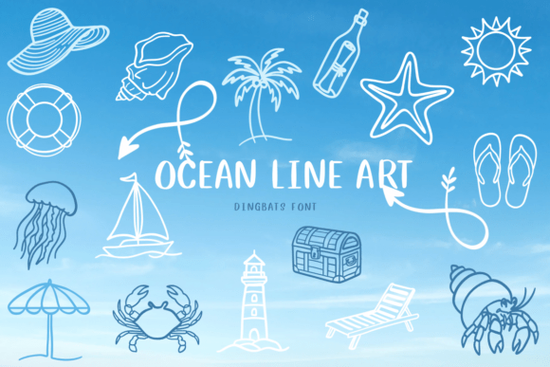
If you're working on a beach-themed invitation, coastal branding, or a summer craft project, the right decorative elements can make all the difference. That’s where Ocean Line Art Font comes in handy. This dingbat font features hand-drawn ocean motifs think seashells, starfish, waves, and sailboats all rendered in a light, sketchy line style that feels both relaxed and intentional.
Unlike standard letter fonts, Ocean Line Art is made entirely of symbols, which means each key on your keyboard gives you a different nautical illustration. It’s perfect for designers who want to add subtle texture or themed accents without relying on clipart or complex vector work. Whether you’re personalizing tote bags for a seaside market stall or designing wedding stationery for a destination ceremony, this font helps you keep your workflow simple while staying visually cohesive.
What kinds of projects work best with this font?
The sketch-like quality of Ocean Line Art makes it especially well-suited for handmade or artisanal aesthetics. Here are a few real-world uses:
- Event invitations – Add tiny crabs or coral details around text for beach weddings or baby showers.
- DIY home décor – Use it to stencil onto wood signs, canvas pillows, or ceramic mugs.
- Print-on-demand products – Create repeat patterns or standalone graphics for t-shirts, phone cases, or notebooks.
- Logo accents – Pair minimal typography with a single wave or anchor symbol from the font for coastal businesses like surf shops or seafood cafes.
Because the illustrations are clean and not overly detailed, they scale well from small stickers to large wall art without losing clarity. And since it’s a font (not an image), you can recolor or resize every element instantly in design software like Adobe Illustrator, Canva, or even free tools like Inkscape.
How does it compare to other thematic dingbat fonts?
If you’ve browsed Creative Fabrica’s collection before, you might already be familiar with similar offerings. For example, the Beach Icon Collection leans more toward bold, solid icons great for high-contrast prints but less delicate than Ocean Line Art. On the other hand, if you’re looking for general hand-drawn elements beyond ocean themes, the Doodle Elements Font offers everything from leaves to arrows in a comparable sketch style, making it a flexible companion for mixed-theme projects.
What sets Ocean Line Art apart is its consistent visual language: every icon shares the same fine-line weight and casual stroke, so your final design feels unified rather than pieced together from random graphics.
Tips for using Ocean Line Art effectively
To get the most out of this font, keep these practical pointers in mind:
- Pair it with simple sans-serif fonts. Because the icons are already illustrative, avoid ornate or script typefaces nearby they can compete for attention.
- Use spacing intentionally. The light lines can disappear if printed too small or on busy backgrounds. Test printouts at actual size before committing to bulk production.
- Layer for depth. Try overlapping two icons slightly or placing one behind text as a watermark-style backdrop.
Also, remember that dingbat fonts like this one don’t replace your main typography they enhance it. Think of Ocean Line Art as your visual seasoning: a pinch here and there adds flavor, but you wouldn’t serve a meal made only of salt.
Where else can you find matching assets?
For those building a brand around coastal living, consistency matters. Using the same visual language across your website, packaging, and social media creates trust and recognition. A thoughtfully chosen dingbat font like this one becomes part of your visual toolkit, not just a one-off decoration.